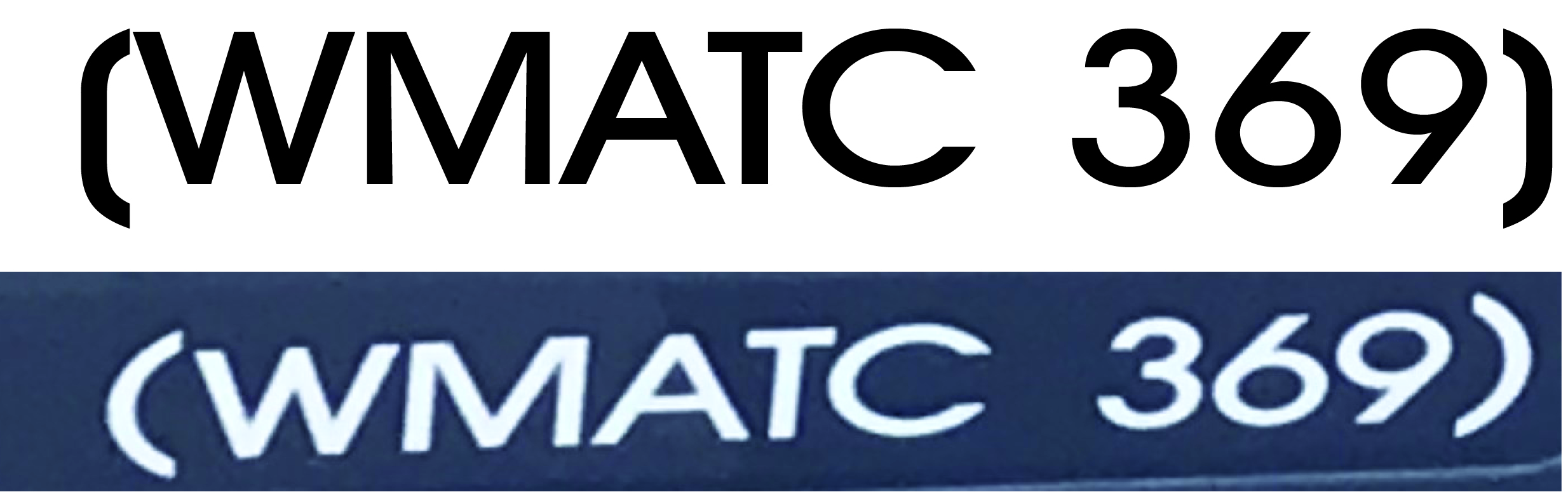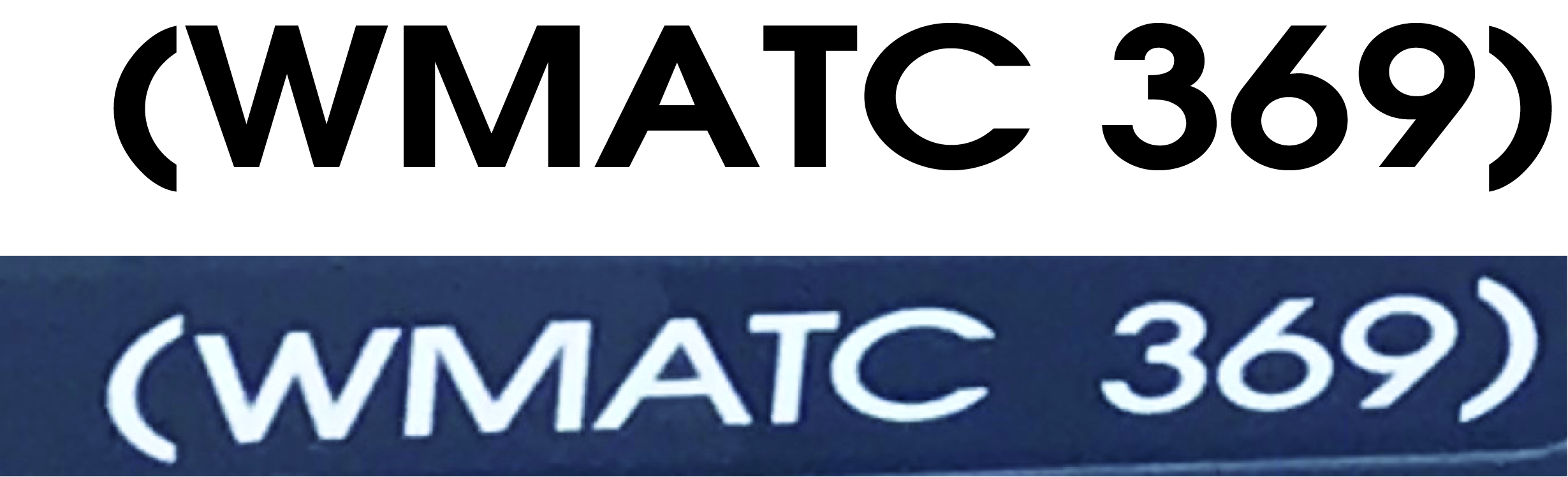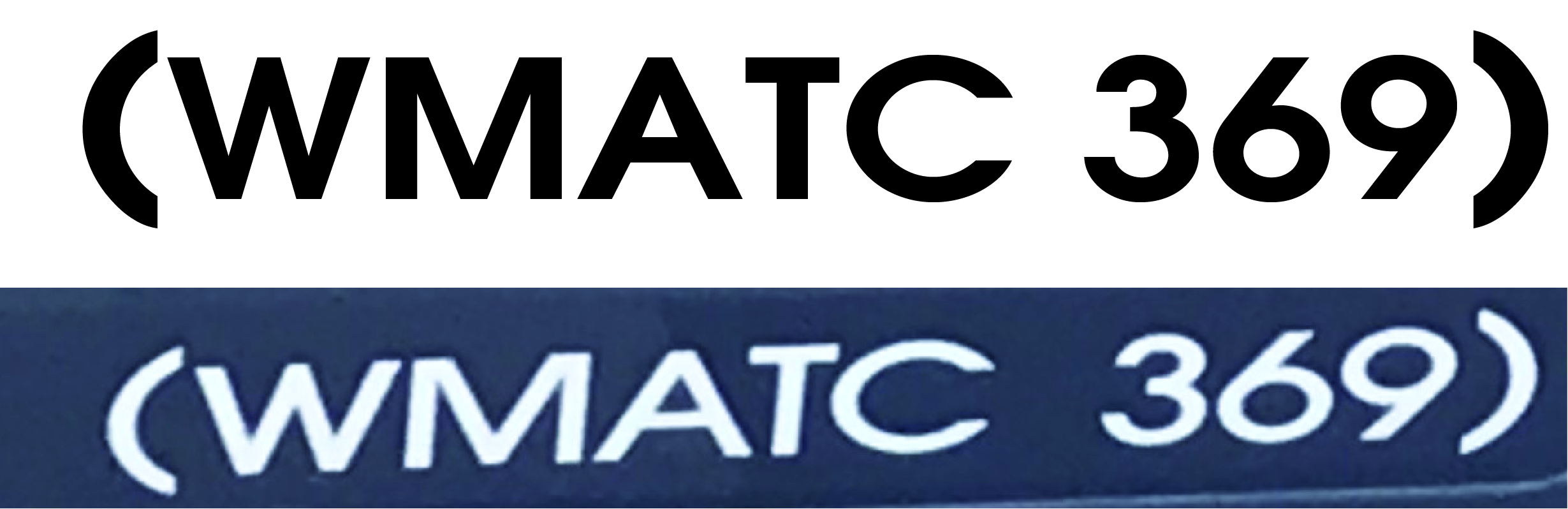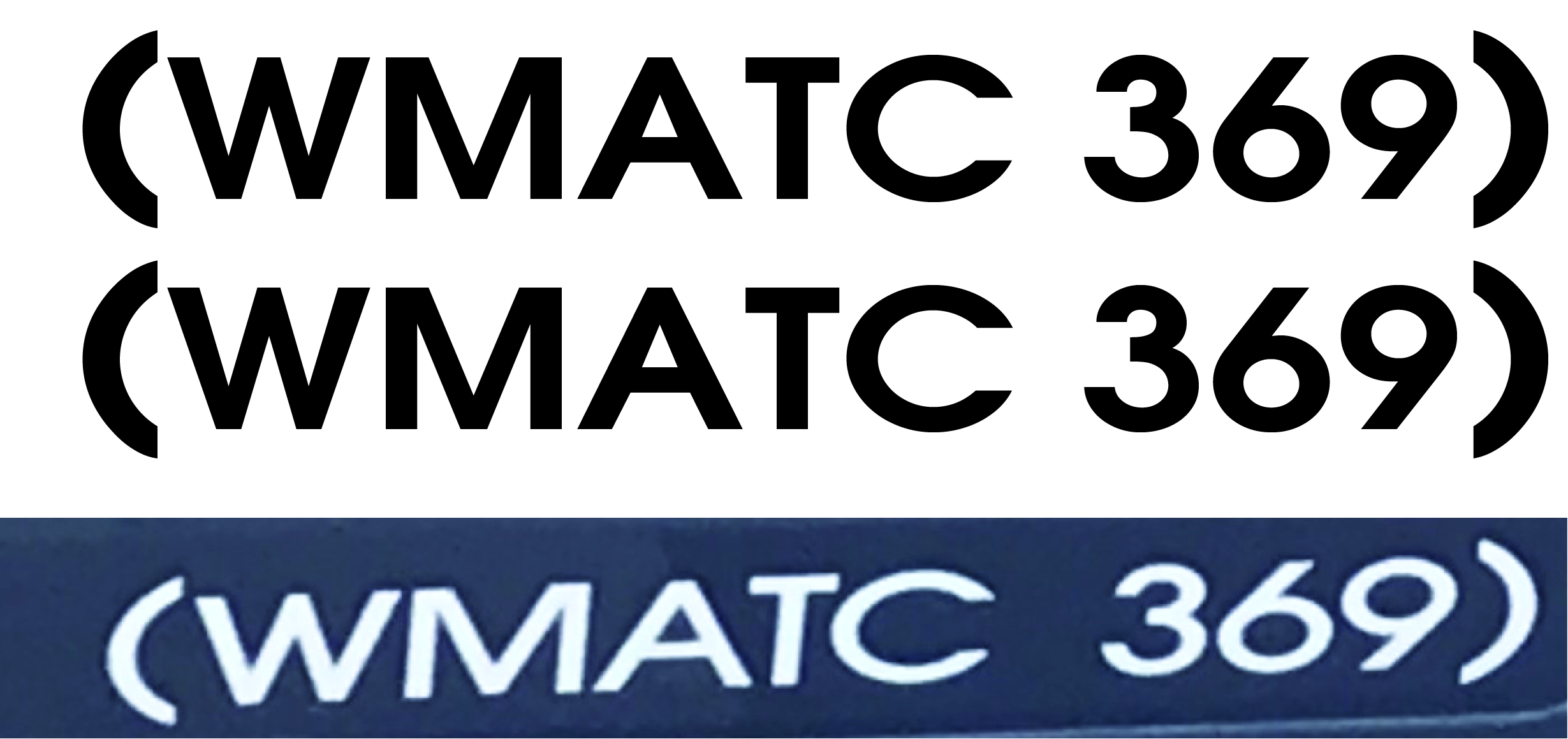
I'm usually good with this but not finding what I need. Tried What the font and Identifont.
Note this pic is a tad skewed.
I keep going to Futura because of the numbers but the letters are all wrong.
Actually just bigger. Just made the () about 40 points bigger.